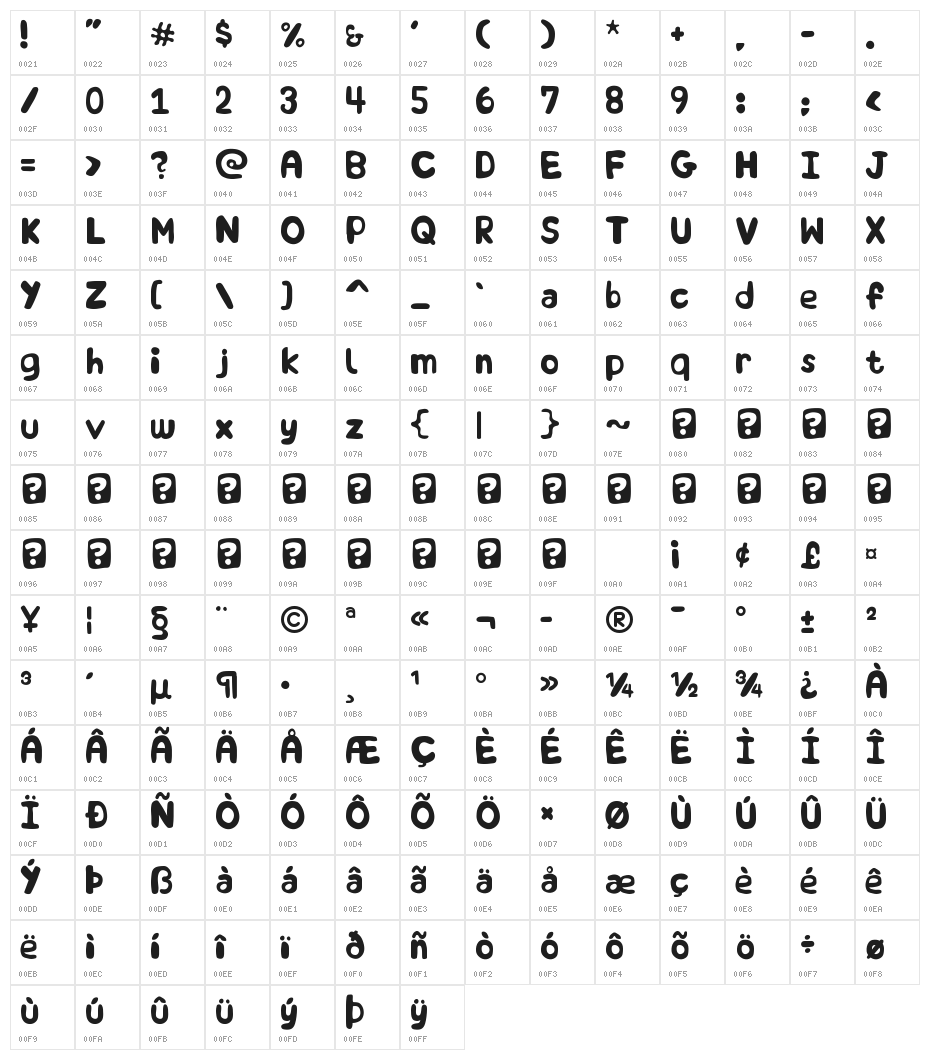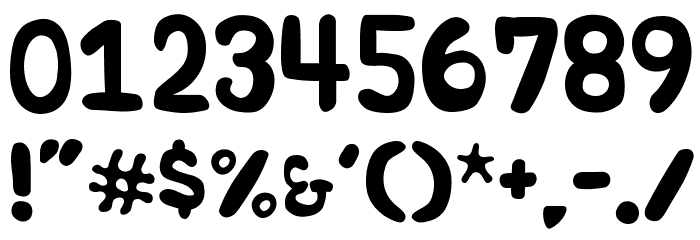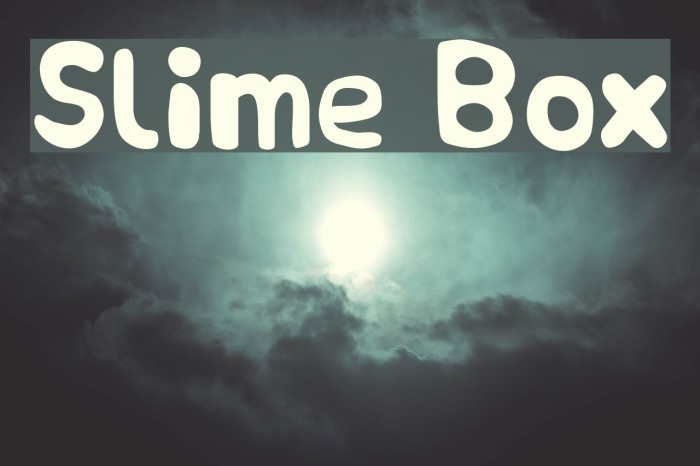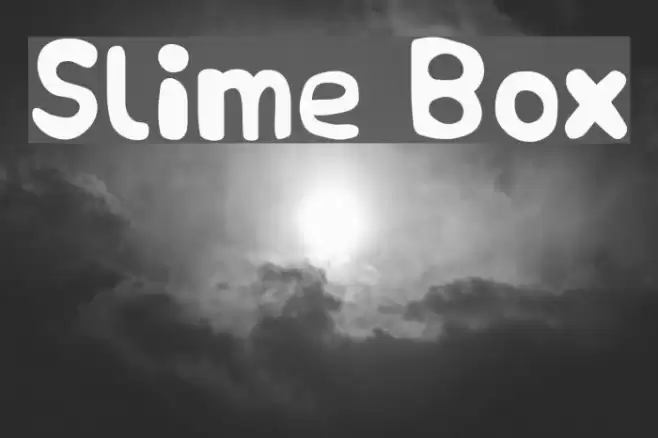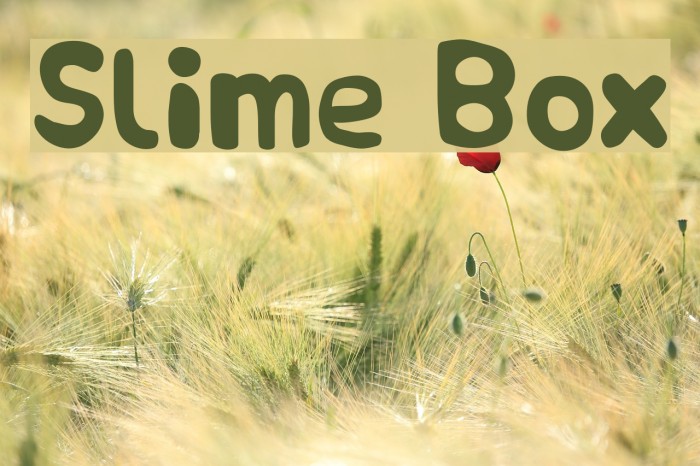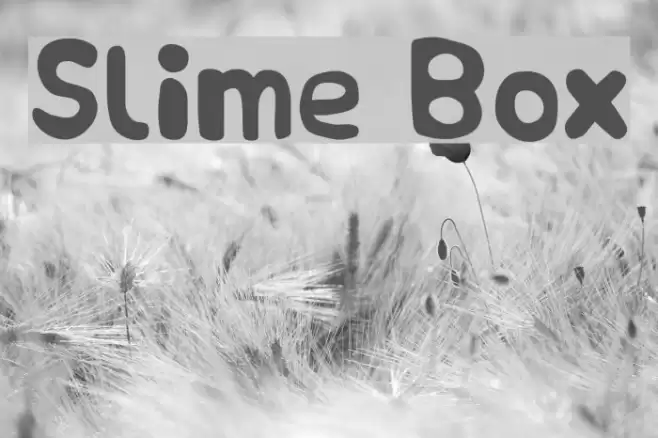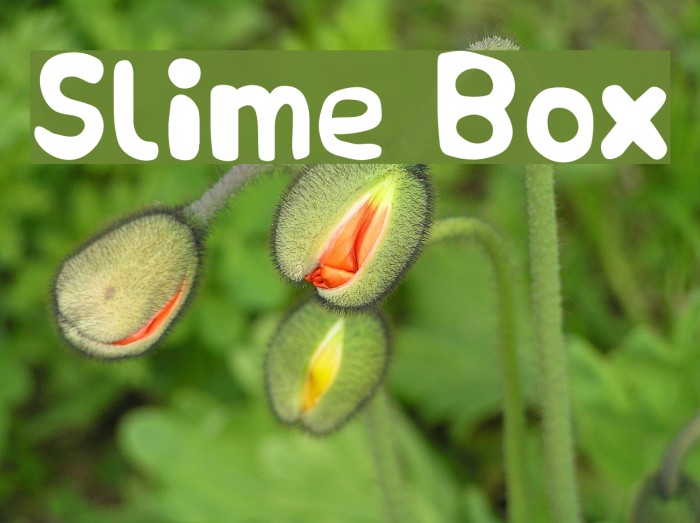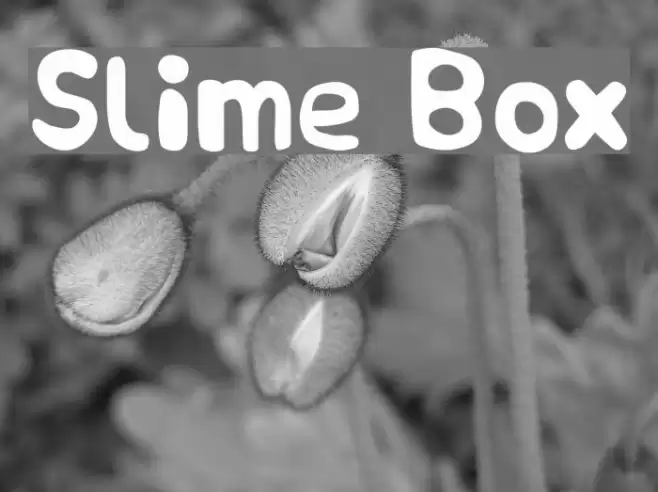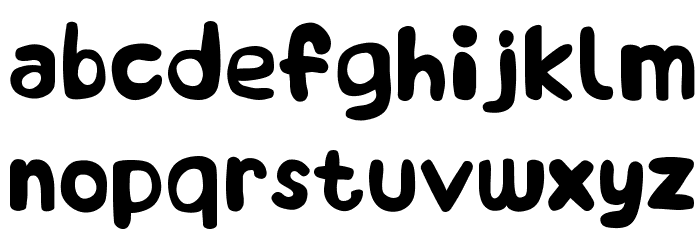
Slime Box Font
Slime Box Description
This playful and bold font features rounded, bubbly characters that exude a fun and whimsical vibe. The letters are thick and have a slightly irregular shape, giving them a hand-drawn appearance. The overall style is casual and friendly, making it ideal for projects that require a touch of humor or creativity. The numbers and special characters maintain the same playful aesthetic, ensuring consistency across all text elements. This font is perfect for children's books, party invitations, or any design that aims to capture a lighthearted and cheerful tone.
| Overall Style | Playful, Whimsical |
| Proposed Projects | Ideal for children's books, party invitations, playful branding, and creative posters. |